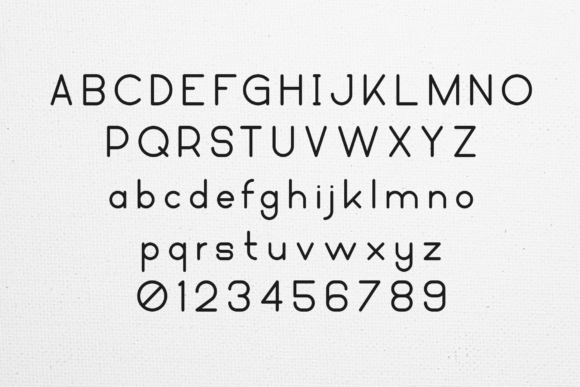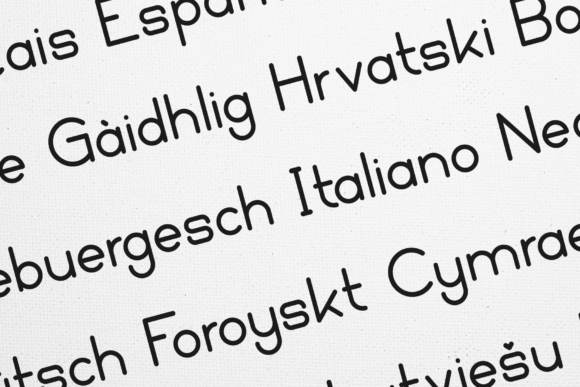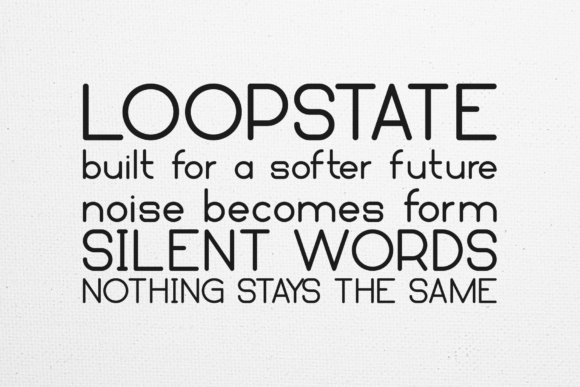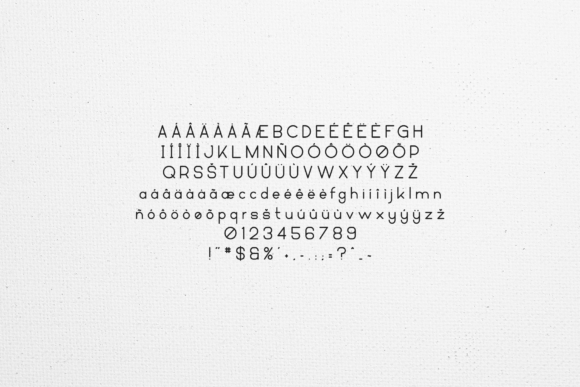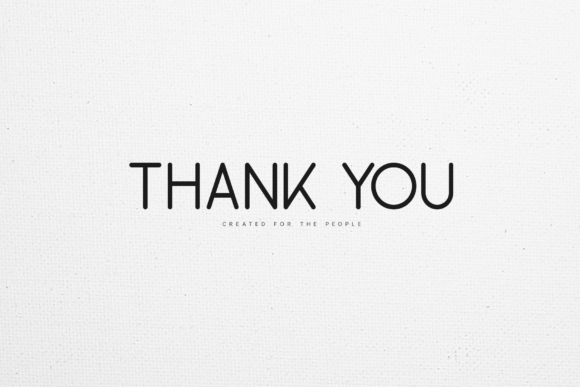
Introduction to Mooka Font Font
Fonts play a crucial role in design, and the Mooka Font font is a typeface that brings both character and versatility to any project. Whether you’re working on a branding project, a website, or a print design, the Mooka Font font offers a unique style that can elevate your work.
Mooka is a clean and modern sans serif typeface designed for clarity, versatility, and contemporary design.
The design focuses on simplicity, readability, and visual harmony, making it ideal for branding, editorial layouts, digital interfaces, and typography-driven designs .
Key Features of Mooka Font Font
Why Choose Mooka Font Font?
The Mooka Font font is more than just a typeface – it’s a design tool that helps you communicate your message with style and clarity. Its unique character set and versatile design make it suitable for a wide range of applications, from elegant invitations to bold headlines.
With its carefully crafted letterforms and balanced proportions, the Mooka Font font ensures readability and visual appeal across all mediums.
What makes Mooka Font font special?
The Mooka Font font stands out with its unique design, exceptional readability, and versatility across various design applications.